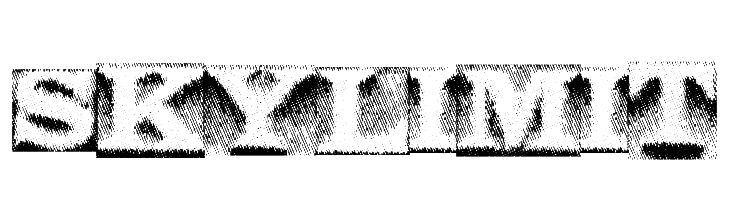
A bold, textured, three-dimensional font with a vintage industrial style.
A bold, grungy font with a ransom note style and high contrast.
A bold, distressed font with a ransom note style.
A bold, brushstroke-style font with a dynamic and artistic appearance.
A bold, distressed decorative font with a vintage, textured appearance.
A bold, textured font with a distressed, vintage appearance.
A distressed, grungy font with irregular, jagged edges and bold strokes.